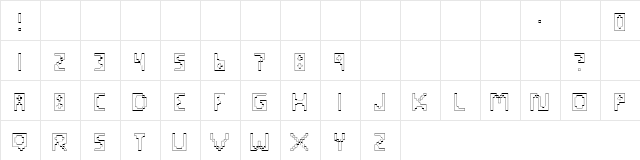
Maximum Radiation Level Outline Regular
Design Context for Maximum Radiation Level Outline Typeface
Maximum Radiation Level Outline is built around its visual character rather than neutral utility — its distinctive forms are designed to make an impression at display sizes.
Font Pairing: Pair with a clean neutral sans-serif for body copy to let Maximum Radiation Level Outline's character lead without overwhelming the composition.
Pro Tip: Use Maximum Radiation Level Outline exclusively at display sizes — it was designed to be seen, not read at length. Let a neutral companion handle body copy.